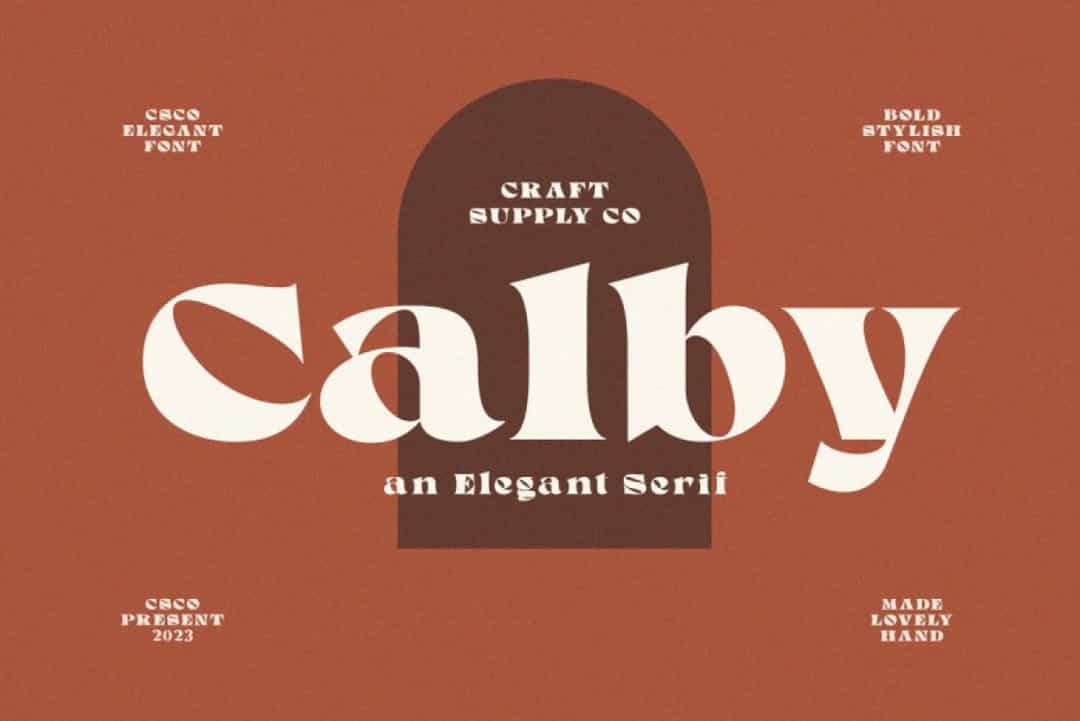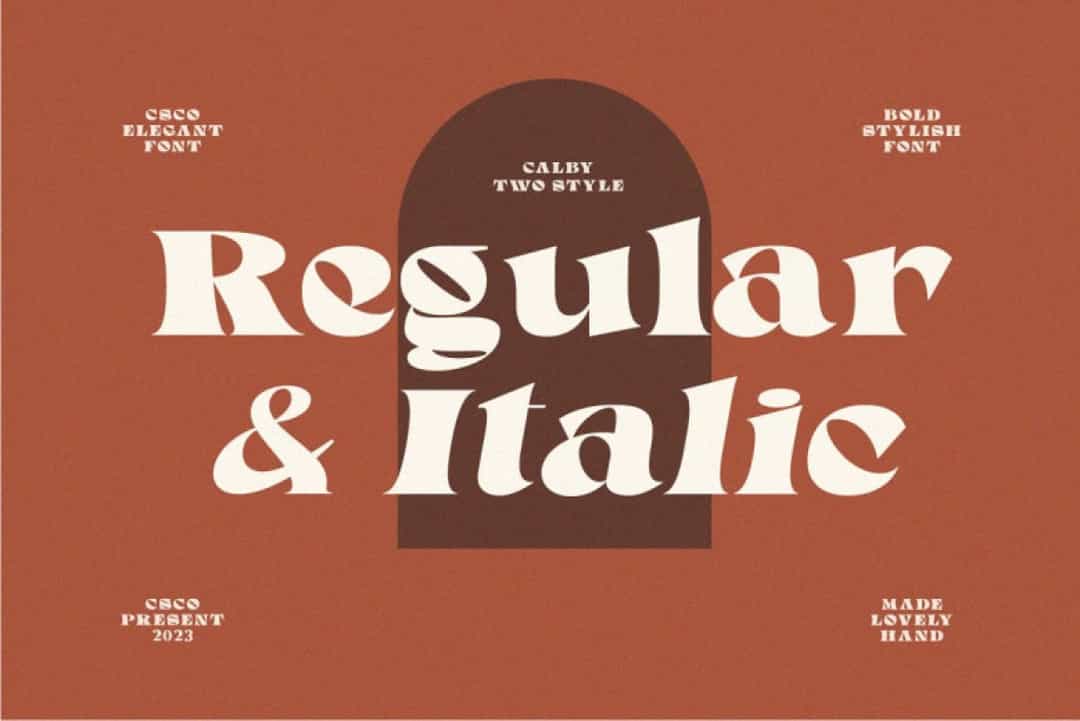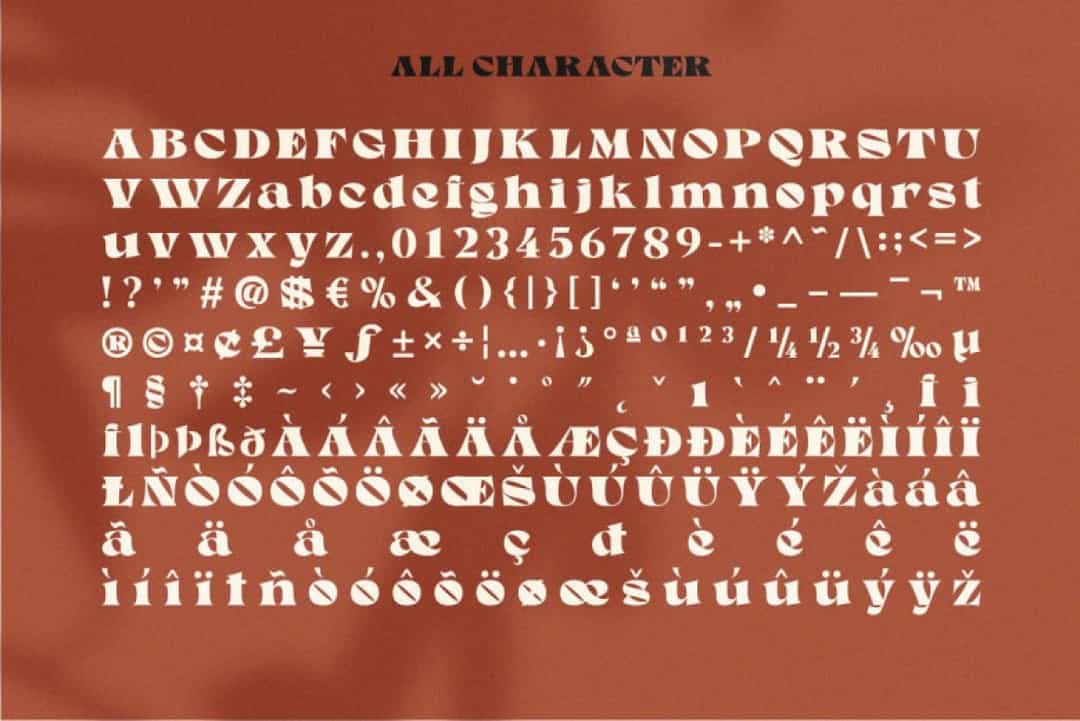
Calby is an elegant new serif typeface family consisting of italic and regular font styles that offer you plenty of creative freedom in designing. Perfect for both modern designs that need an added personal touch as well as lavish formal projects – Calby has something suitable for all styles of designs!